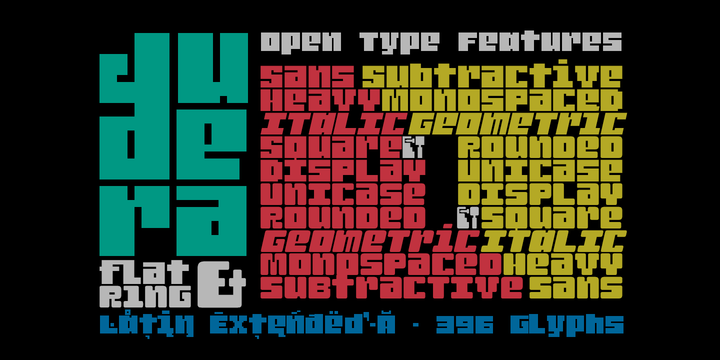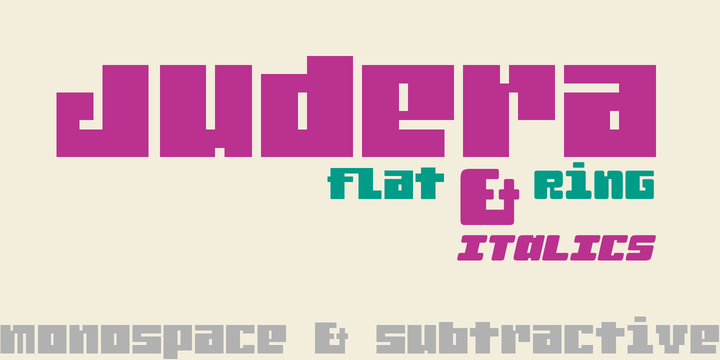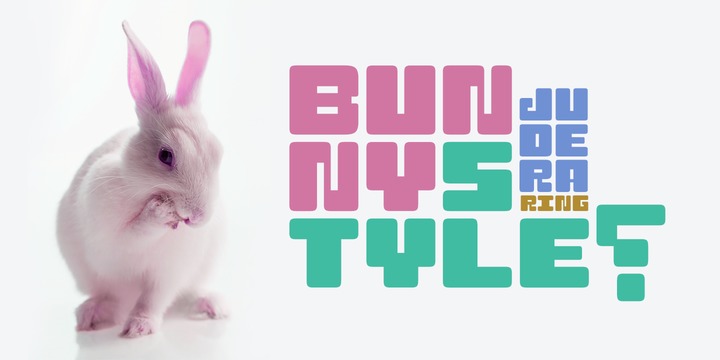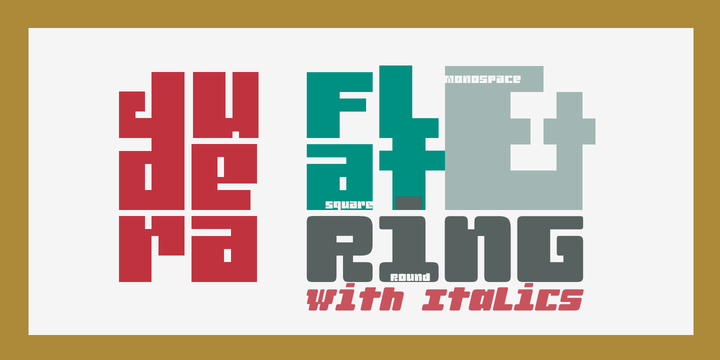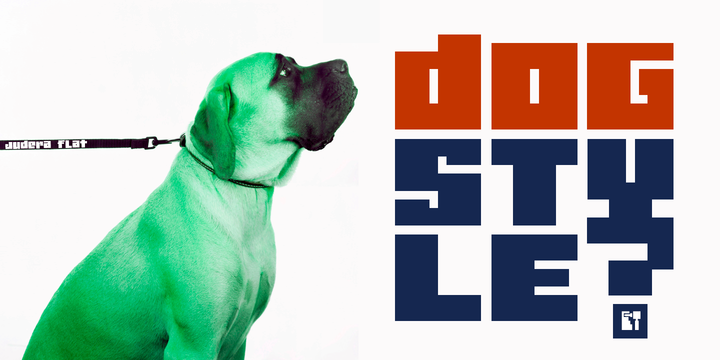
Judera is an unicase and monospaced experimental typography of subtractive geometric construction with no diagonals with two styles plus italics which have a 13° inclination.
Flat: font of straight lines with all angles at 90° Ring: Rounded in its external vertices with angles proportional to the constructive grid.